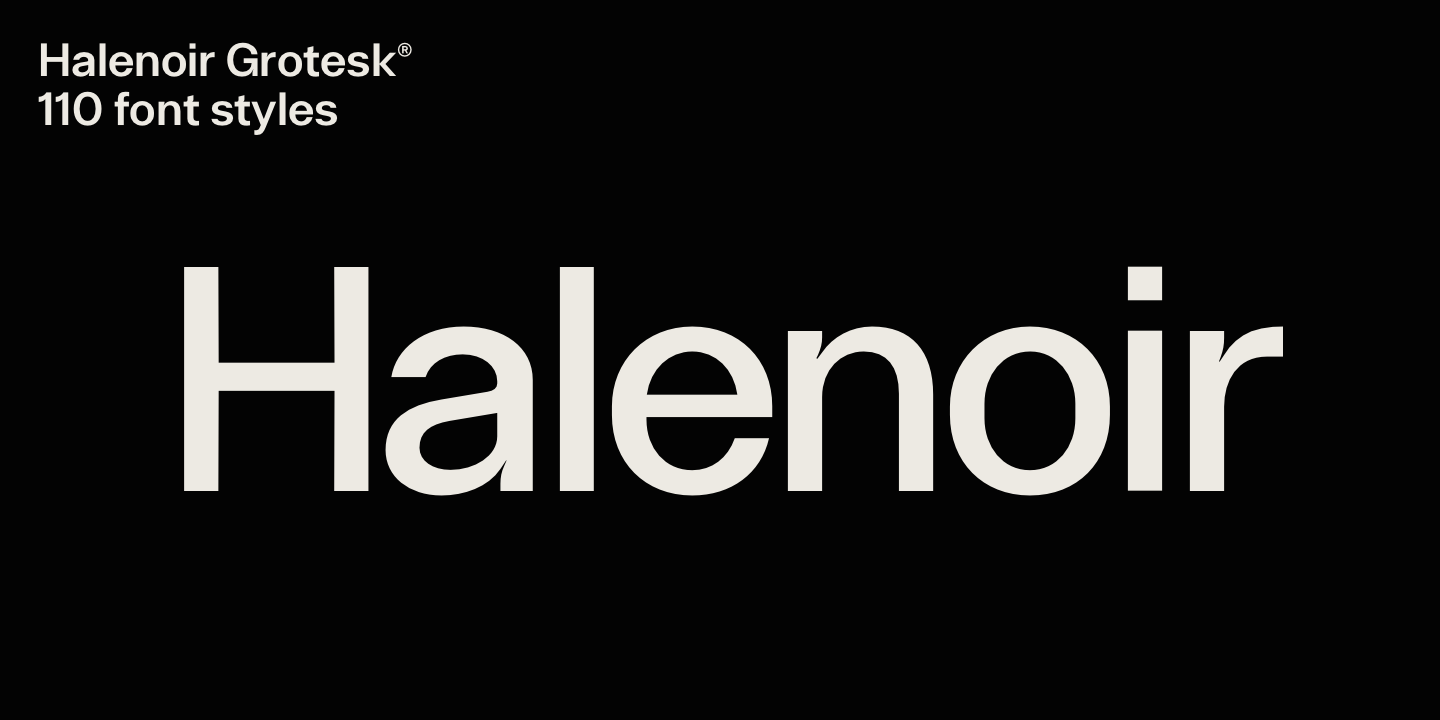
Halenoir Font Free Download is a sleek, modern sans-serif typeface designed for a contemporary and professional aesthetic. With its clean lines and minimalistic structure, Halenoir is perfect for logos, branding, editorial layouts, websites, and digital content. The font offers a stylish, versatile design, making it ideal for projects that require clarity, elegance, and a modern touch.
With Halenoir Font Free Download, you’ll receive a complete set of uppercase letters, lowercase, numbers, and essential punctuation, giving you flexibility for a wide range of design applications. Whether you're creating a sophisticated brand identity, developing marketing materials, or designing a polished website, this font ensures high readability while adding a refined, modern feel to your work.
Add elegance and simplicity to your designs with Halenoir Font Free Download. Its modern style makes it a perfect choice for projects that need clarity, sophistication, and a contemporary edge.